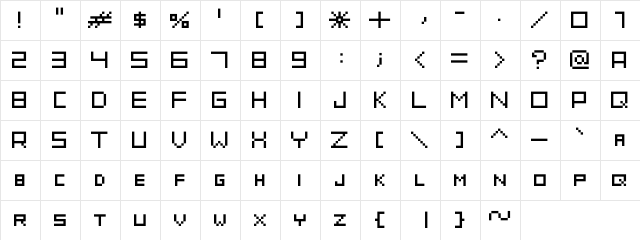
Straightline Regular
Design Context for Straightline Typeface
Straightline offers clean, dependable letterforms without strong stylistic allegiance, making it a practical choice for designers who need flexibility.
Pro Tip: Use Straightline in both headline and body roles to test its range before committing to a single application.